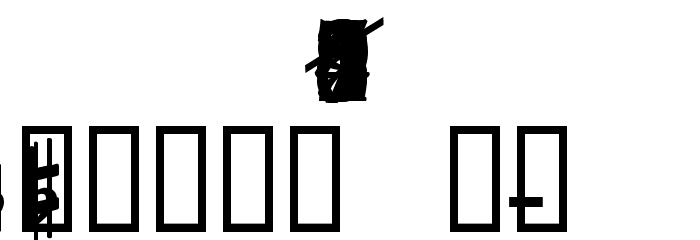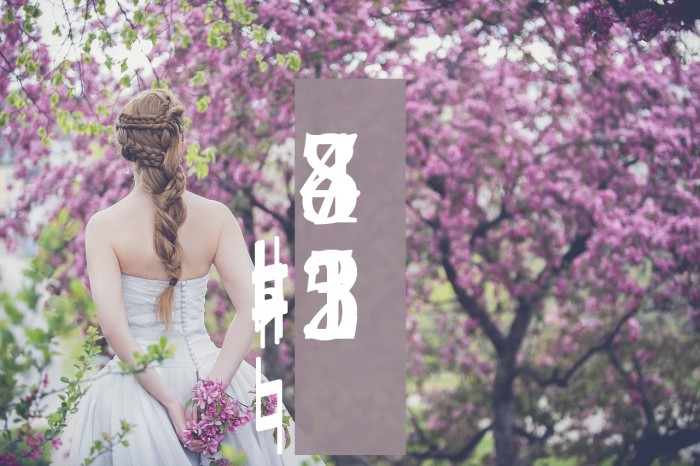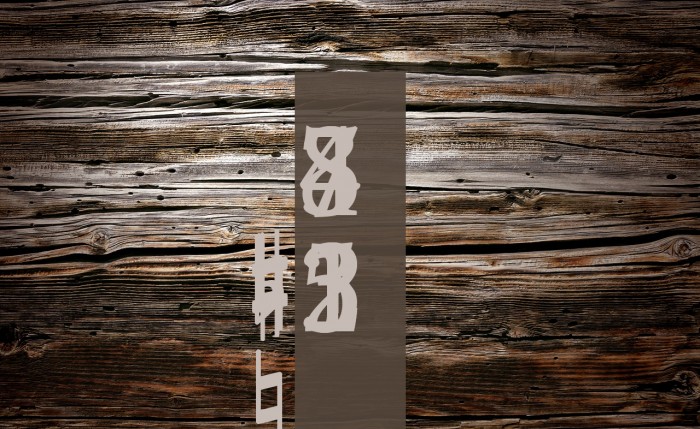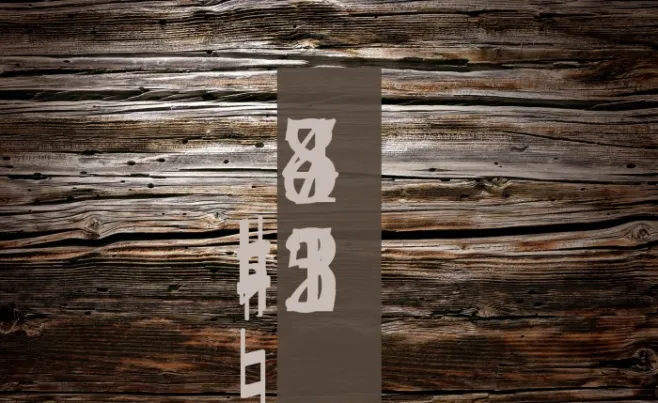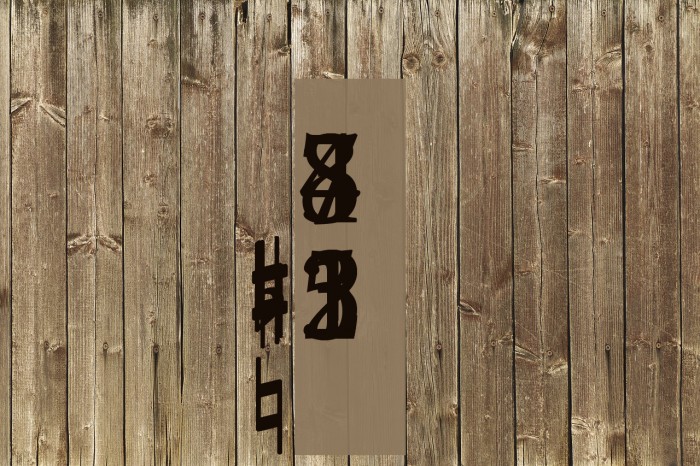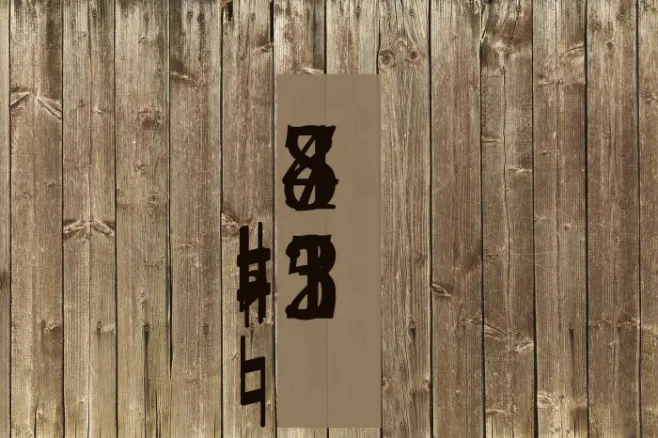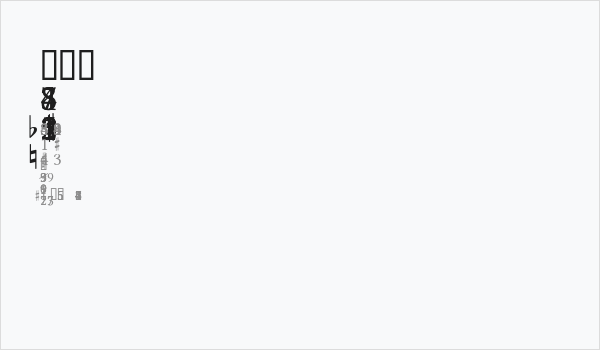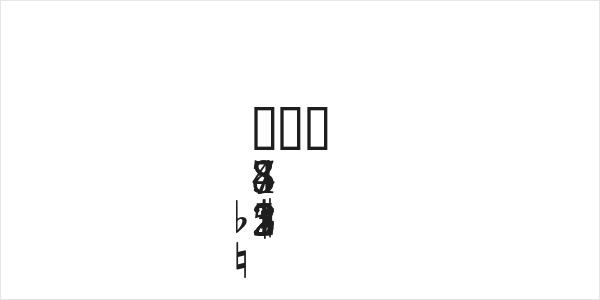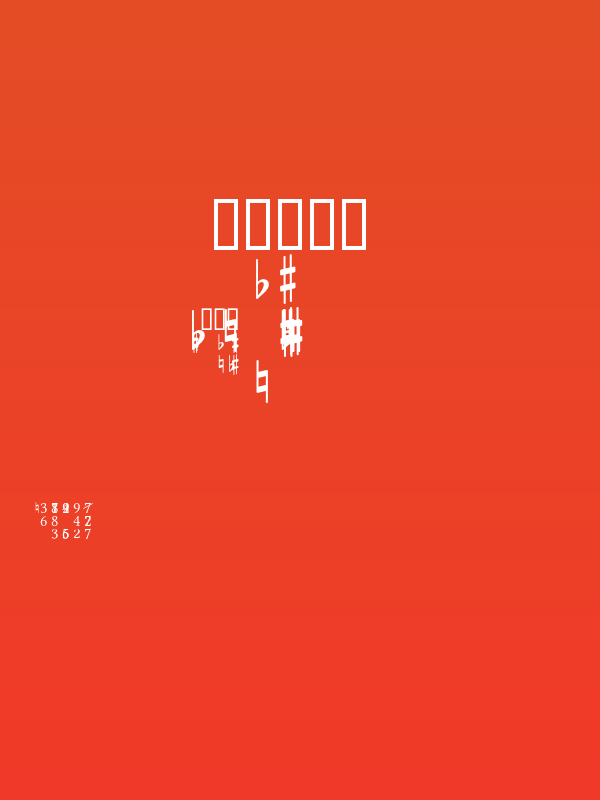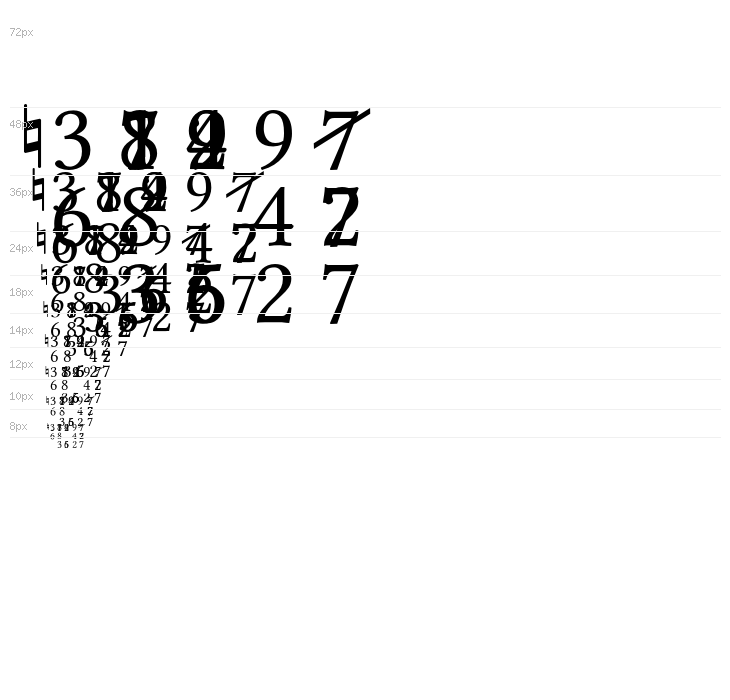
FiguredBassMHGPL Font
FiguredBassMHGPL Description
This font is designed specifically for musical notation, particularly for figured bass. It features a series of symbols and numbers that are essential for musical compositions. The characters are bold and clear, ensuring readability in musical scores. The font includes a variety of musical symbols, numbers, and special characters that are commonly used in music theory and composition.
| Use Case | Musical notation, educational materials, music composition. |
| Proposed Projects | Ideal for music composition software, educational materials for music theory, and printed musical scores. |